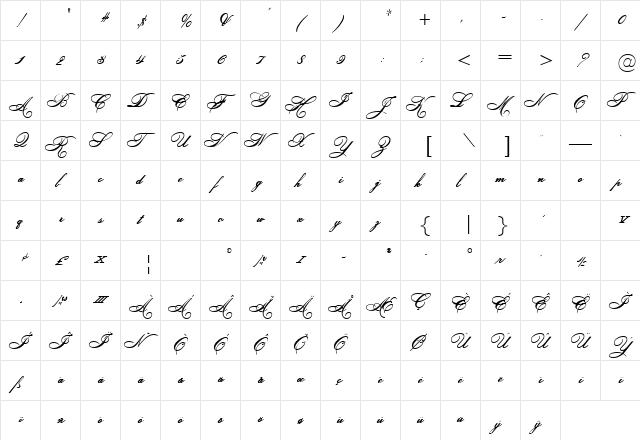
HeddyOpti-Script Script
Design Context for HeddyOpti-Script Typeface
HeddyOpti-Script flows with the natural rhythm of handwritten lettering, making it ideal for designs that call for warmth and personal expression.
Font Pairing: Combine HeddyOpti-Script with a simple geometric sans for maximum contrast — the tension between flowing curves and clean structure is a classic typographic pairing.
Pro Tip: Use HeddyOpti-Script for short runs of text — names, titles, or taglines. Extended body copy in script faces tires the eye quickly.